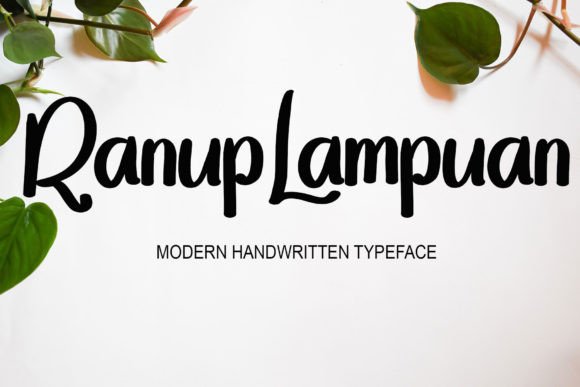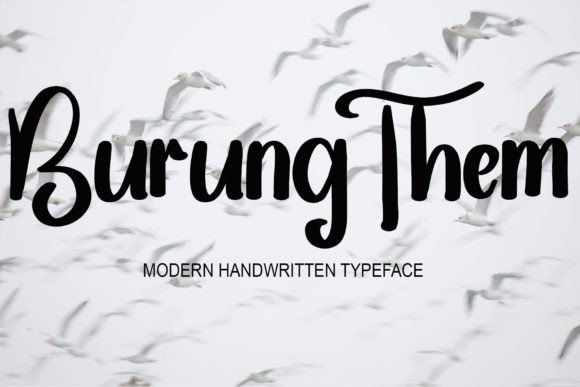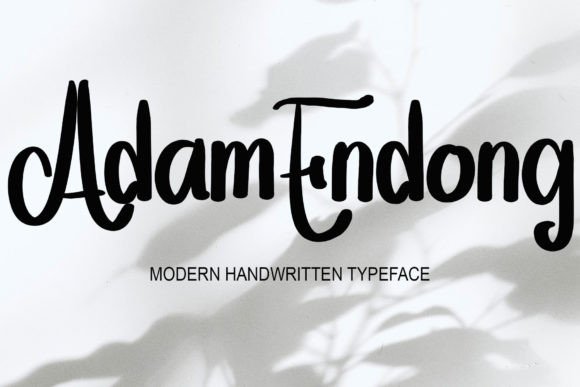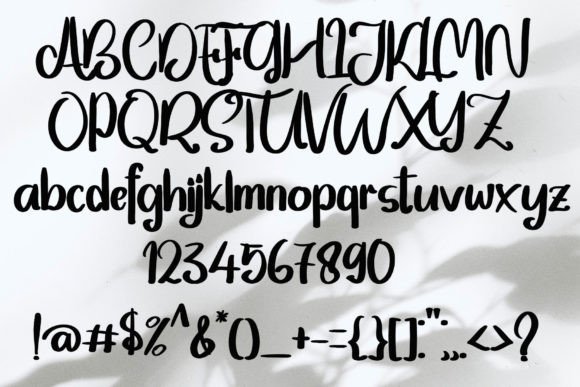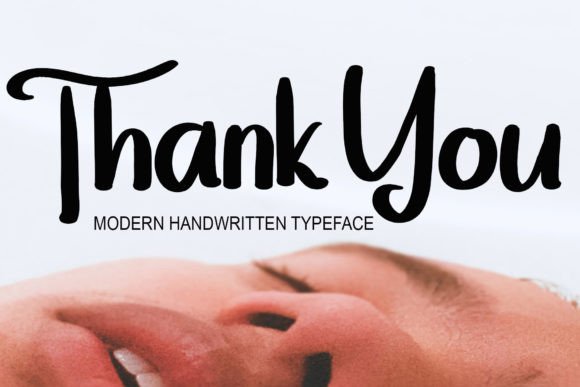
Introducing Agampeng Font: Elevate Your Designs with a Stylish and Bold Handwritten Touch
Are you looking for a font that can add a touch of elegance and sophistication to your designs? Look no further than Agampeng Font. This gorgeous and bold handwritten font is crafted to give your headlines and logotype projects a stylish touch that’s sure to turn heads. With its strong, confident, and dynamic feel, Agampeng Font is the perfect choice for designers and crafters who want to add a little extra something to their work.
The Characteristics of Agampeng Font
Agampeng Font is a truly unique and eye-catching font that’s perfect for a wide range of design projects. Here are just a few of its key characteristics:
- Bold and confident: Agampeng Font is a bold and confident font that’s perfect for headlines and logotype projects. Its strong and dynamic feel is sure to grab attention and make a lasting impression.
- Handwritten with love: Agampeng Font is a handwritten font that’s crafted with love and care. Its unique and personal feel is sure to add a touch of warmth and character to your designs.
- Nostalgic charm: Agampeng Font has a nostalgic charm that’s sure to evoke memories of a bygone era. Its classic feel is perfect for designers who want to add a touch of vintage flair to their work.
So why choose Agampeng Font for your next design project? Here are just a few reasons why this font stands out from the crowd:
- Versatility: Agampeng Font is a versatile font that can be used for a wide range of design projects, from headlines and logotype to packaging and branding.
- Unique and exclusive: Agampeng Font is a unique and exclusive font that’s sure to set your designs apart from the crowd. Its bold and confident feel is sure to make a lasting impression on your audience.
- Pair it with a simple font: Agampeng Font is a bold and confident font that’s perfect for headlines and logotype projects. Pair it with a simple font for body copy to create a striking contrast.
- Experiment with colors: Agampeng Font looks great in a wide range of colors, from bold and bright to muted and pastel. Experiment with different colors to find the perfect look for your design.
- Add some texture: Agampeng Font has a unique and personal feel that’s perfect for adding texture to your designs. Try adding a texture or pattern to your background to create a more interesting look.
- Font type: Handwritten
- Font style: Bold
- Characters: Uppercase and lowercase letters, numbers, and punctuation marks
- What is Agampeng Font? Agampeng Font is a gorgeous and bold handwritten font that’s perfect for headlines and logotype projects.